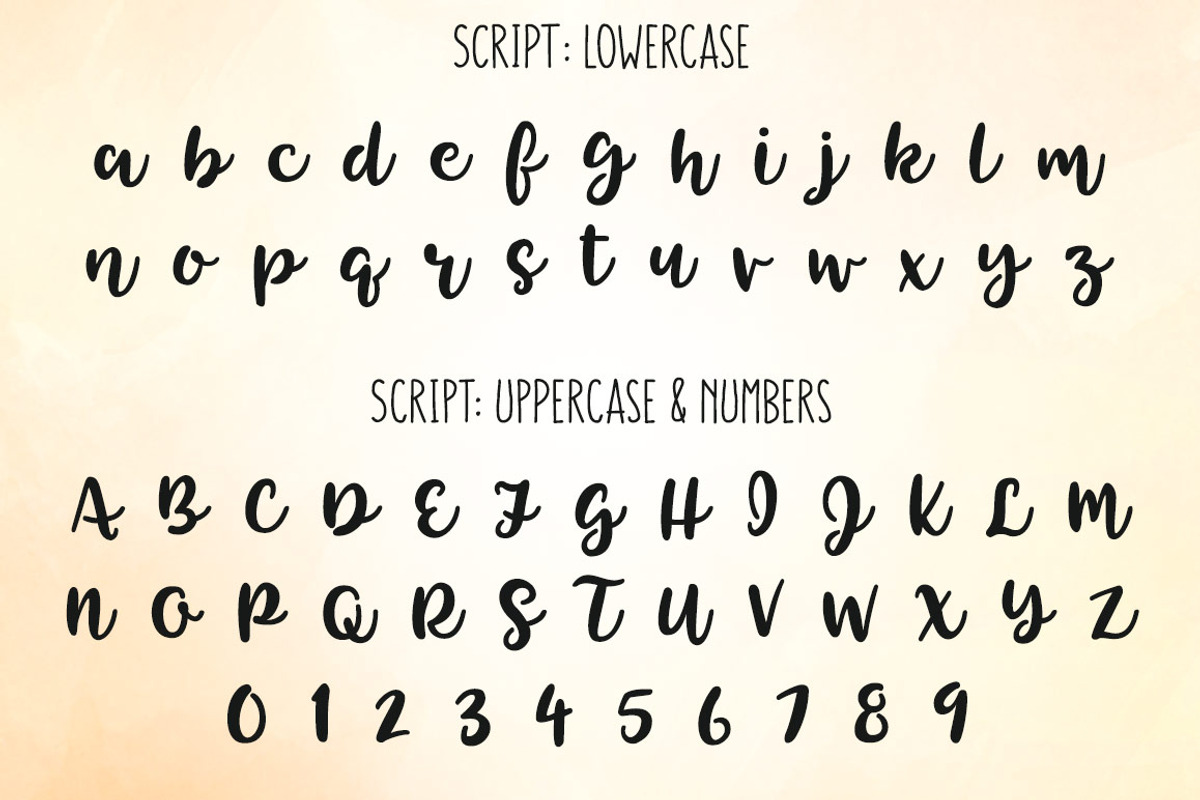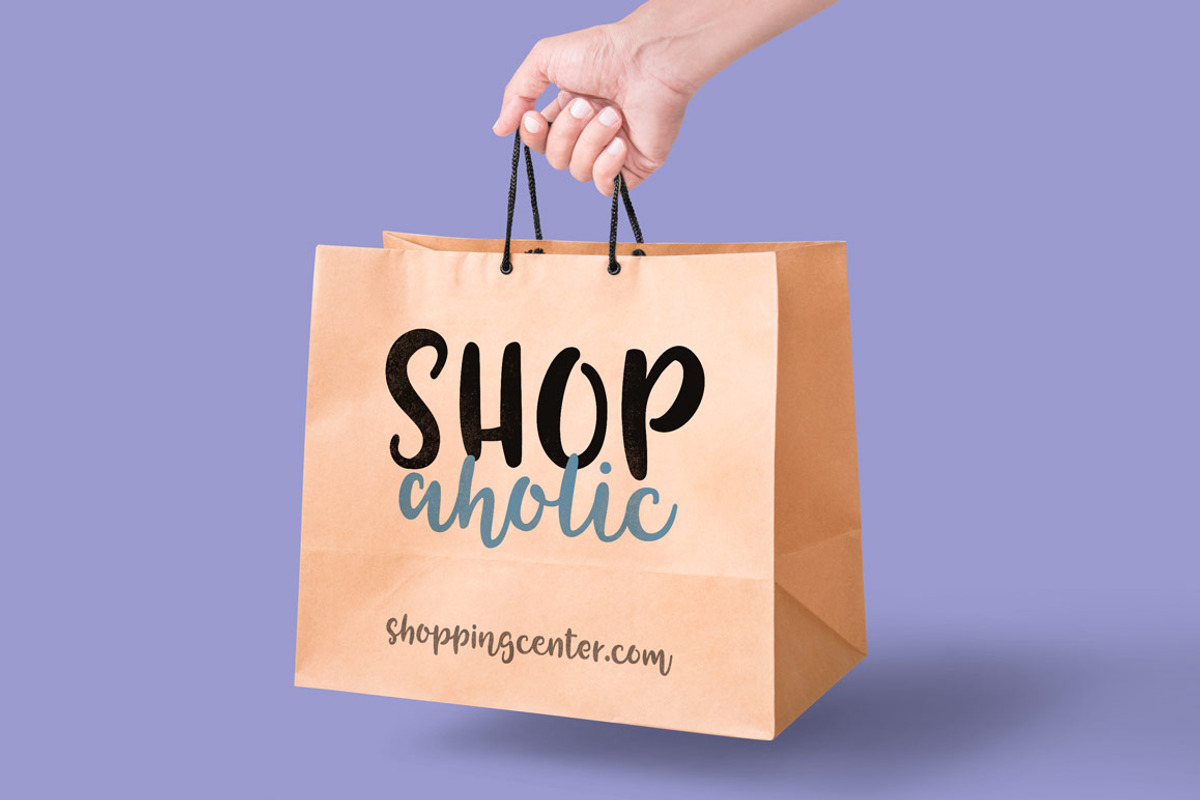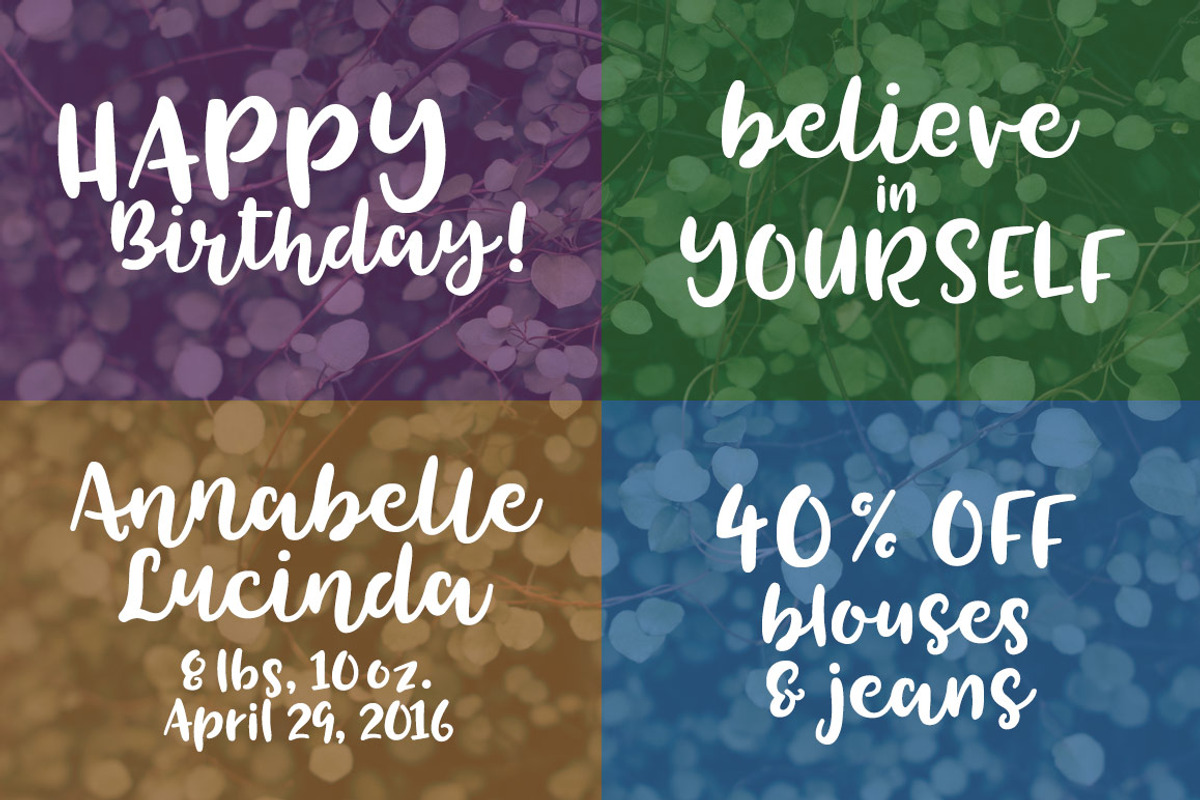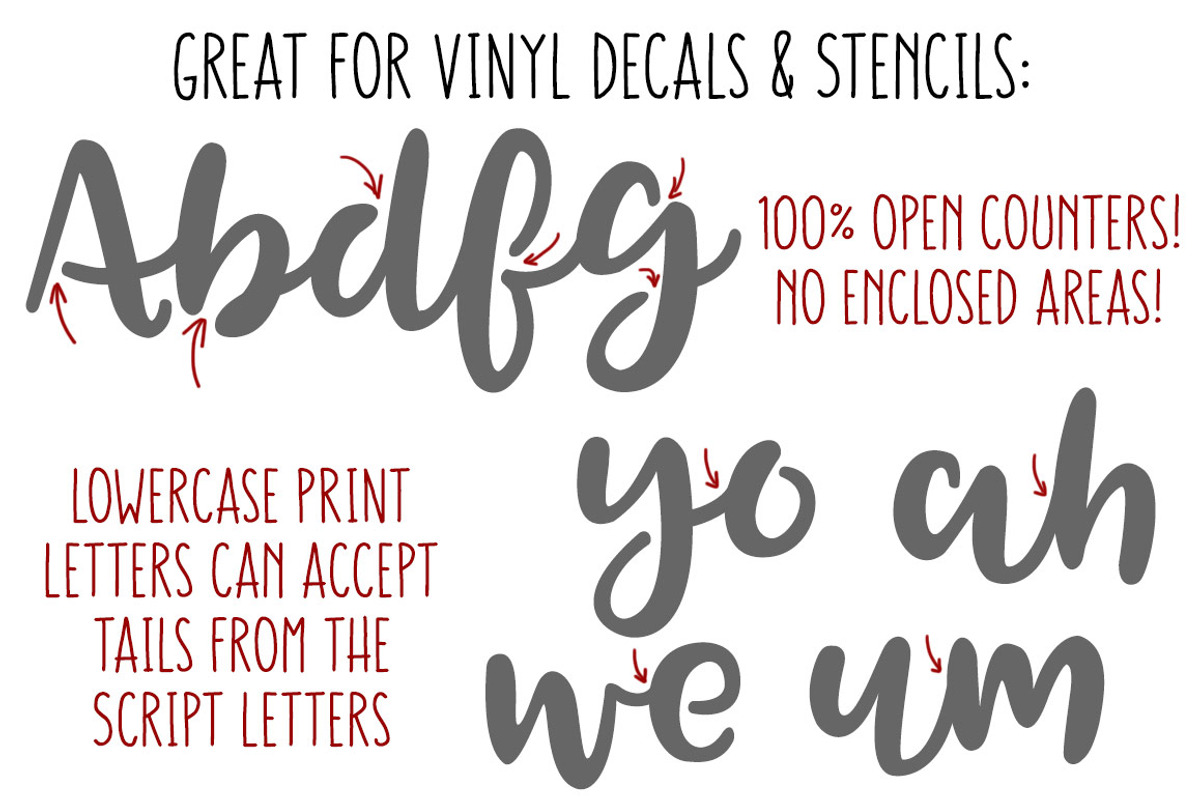
Tingler duo - two handwritten fonts
Tingler duo - two handwritten fonts by Missy Meyer is a font selected for branding, posters, packaging, typography.
- The duo includes Tingler Script, a connecting handwritten script typeface, and Tingler Print, a printed handwritten script typeface.
- The Tingler duo package includes: Almost 700 glyphs in two fonts, designed to work together!
- The duo includes Tingler Script, a connecting handwritten script typeface, and Tingler Print, a printed handwritten script typeface.
- The Tingler duo package includes: Almost 700 glyphs in two fonts, designed to work together!
- All lowercase letters in Tingler Print are situated to accept the connecting tails from Tingler Script -- mix and match them within the same
- Staggered double-letter ligatures for a hand-drawn look!
- Tingler Print Regular
- Tingler Script Regular
Why Tingler duo - two handwritten fonts is worth a look
Tingler duo - two handwritten fonts by Missy Meyer fits naturally into Branding, posters, packaging, typography.